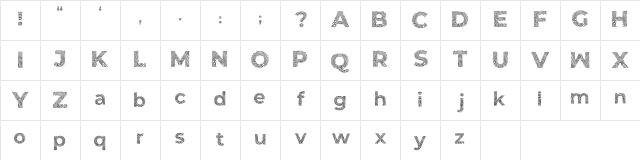
Biometro_gothic Regular
Design Context for Biometro_gothic Typeface
Biometro_gothic has the quiet confidence of well-executed sans-serif typography: versatile, unobtrusive, and dependable at any size.
Font Pairing: Works well alongside a characterful serif or display font that can carry the expressive load while Biometro_gothic handles the functional copy.
Pro Tip: Pair Biometro_gothic with a display or serif font for headlines — its neutral character makes it an excellent supporting player in complex typographic systems.